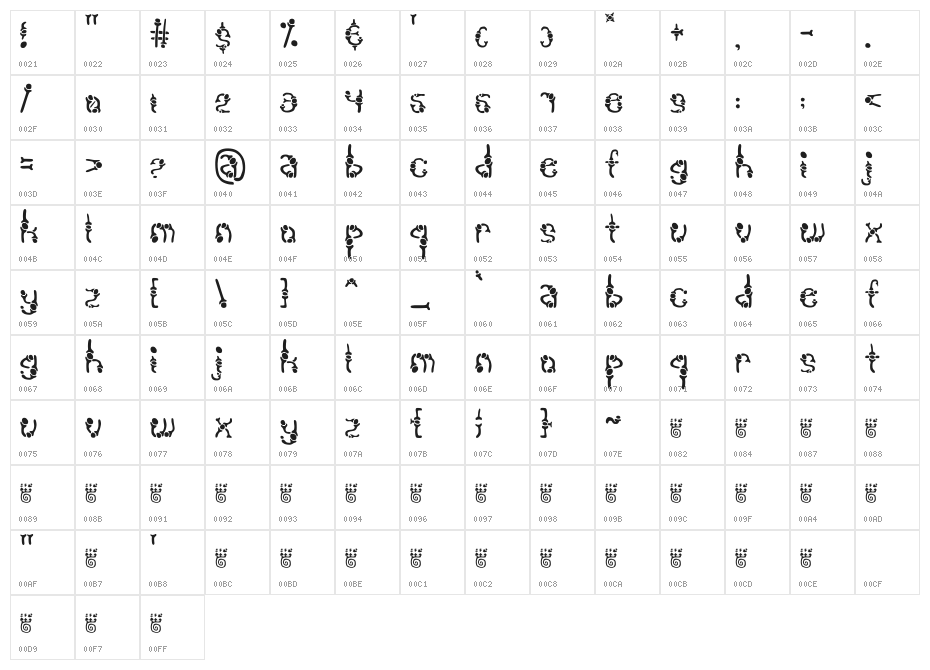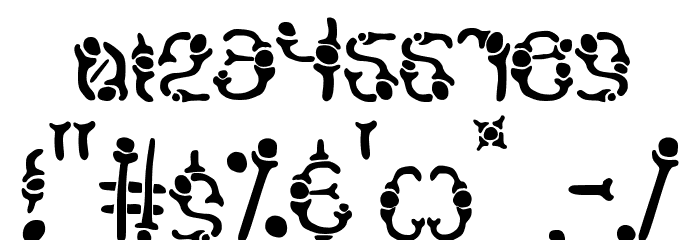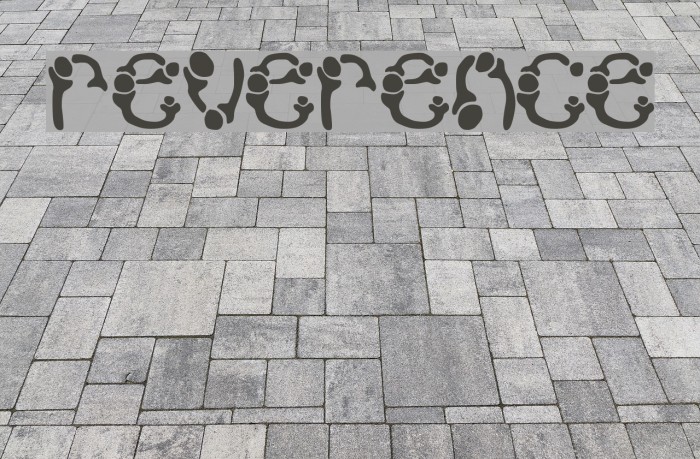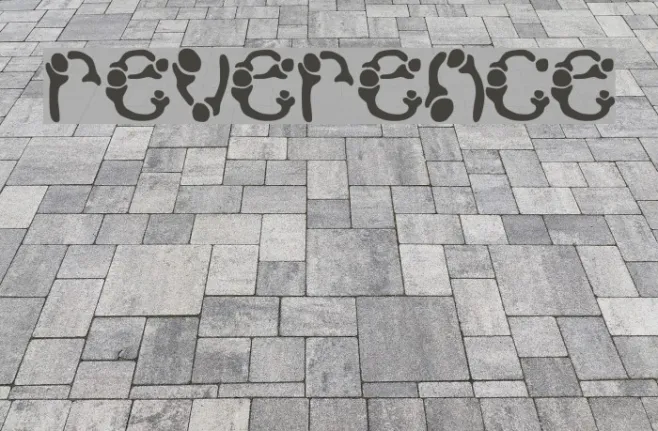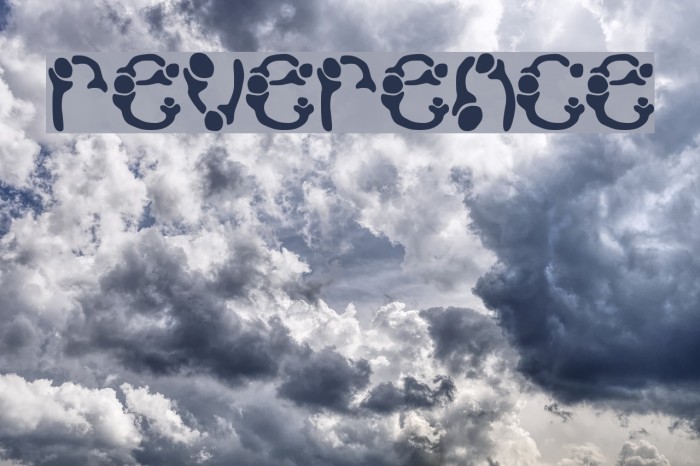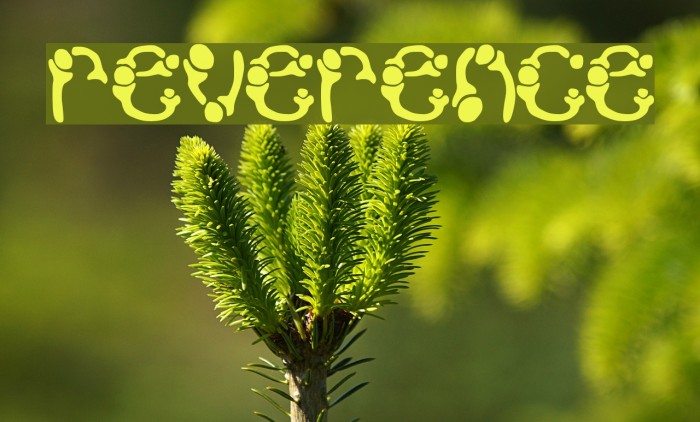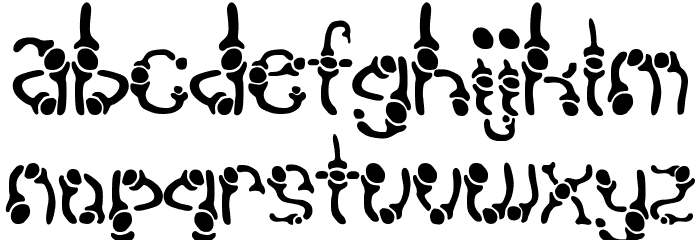
reverence Font
reverence Description
This font exhibits a unique and artistic style, characterized by its bold, abstract forms that resemble a fusion of organic and geometric shapes. Each character is crafted with a series of dots and lines, creating a visually striking and unconventional appearance. The font's design is highly decorative, with a playful yet sophisticated aesthetic that captures attention. Its distinctiveness makes it ideal for creative projects where a bold statement is desired. The characters maintain a consistent weight and width, contributing to a cohesive look across the alphabet and special symbols.
| Proposed Projects | Ideal for artistic posters, album covers, branding for creative industries, and unique logo designs. |